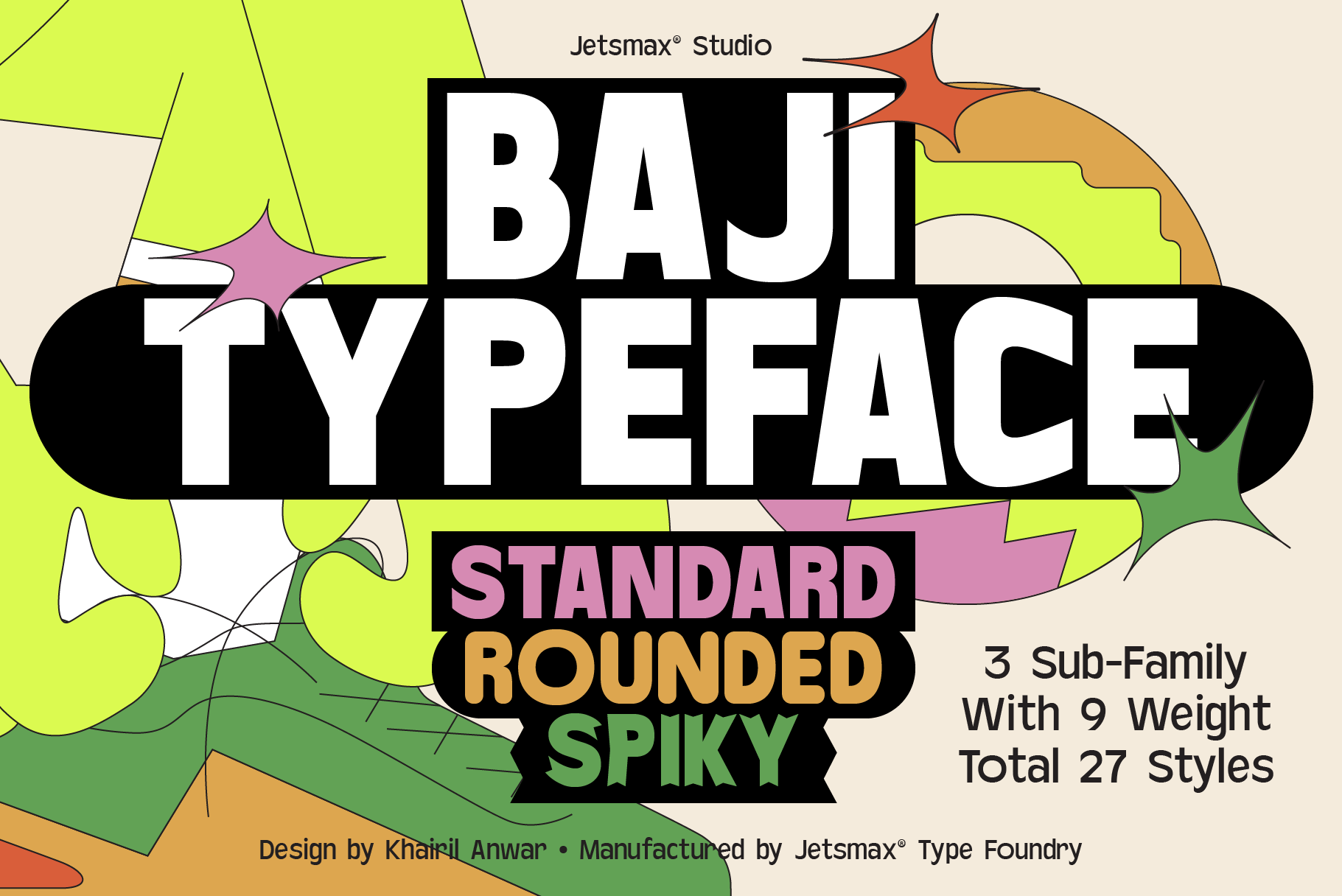
Baji Typeface Collection
Baji Typeface is a versatile sans-serif typeface that offers three distinct sub-families: standard, rounded, and spiky. With its nine weight variations, it provides a wide range of options to suit different design needs.
Baji Collection 3 Family (Baji Standard, Baji Rounded, Baji Spiky)
Baji Standard Full Family
- Baji Standard Thin
- Baji Standard Extra Light
- Baji Standard Light
- Baji Standard Regular
- Baji Standard Medium
- Baji Standard Semi Bold
- Baji Standard Bold
- Baji Standard Extra Bold
- Baji Standard Heavy
Baji Rounded Full Family
- Baji Rounded Thin
- Baji Rounded Extra Light
- Baji Rounded Light
- Baji Rounded Regular
- Baji Rounded Medium
- Baji Rounded Semi Bold
- Baji Rounded Bold
- Baji Rounded Extra Bold
- Baji Rounded Heavy
Baji Spiky Full Family
- Baji Spiky Thin
- Baji Spiky Extra Light
- Baji Spiky Light
- Baji Spiky Regular
- Baji Spiky Medium
- Baji Spiky Semi Bold
- Baji Spiky Bold
- Baji Spiky Extra Bold
- Baji Spiky Heavy